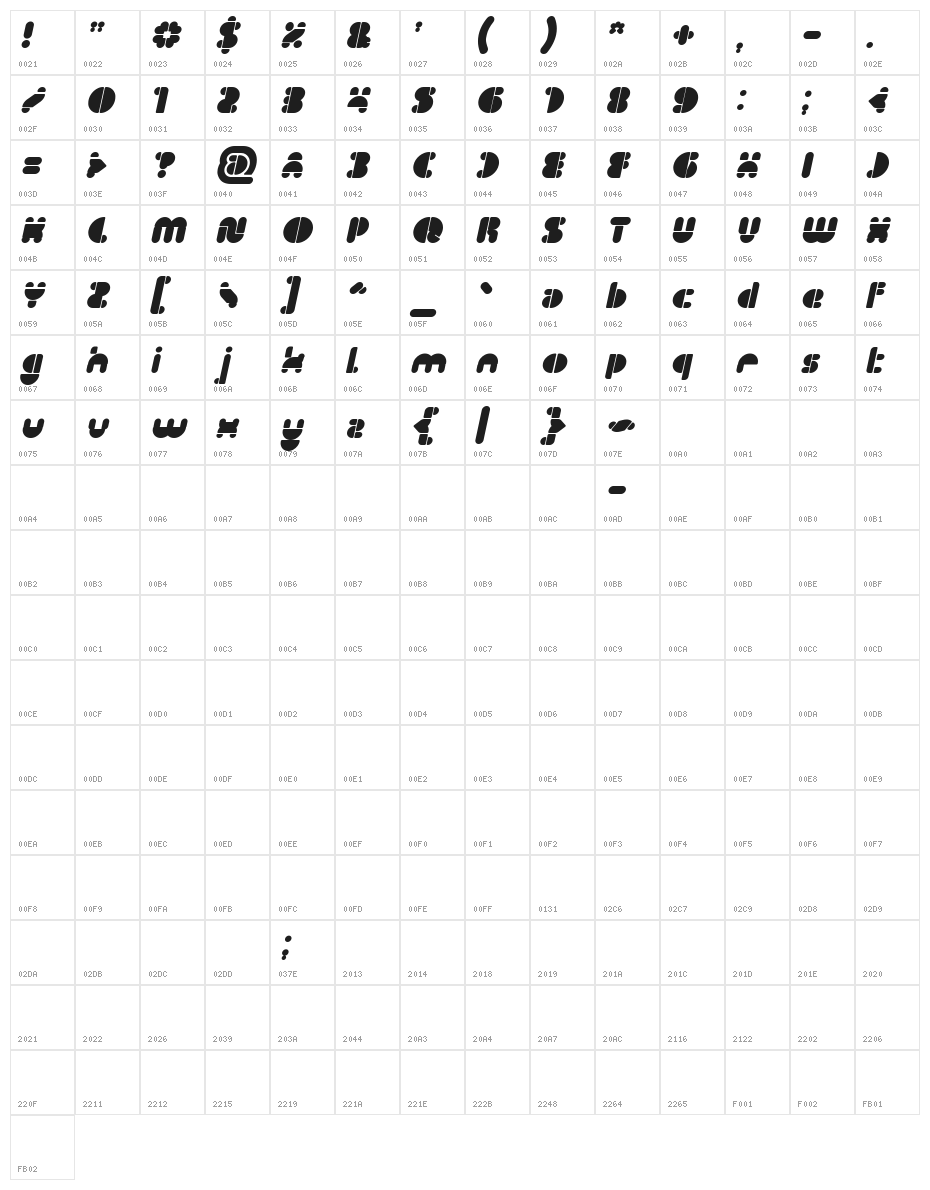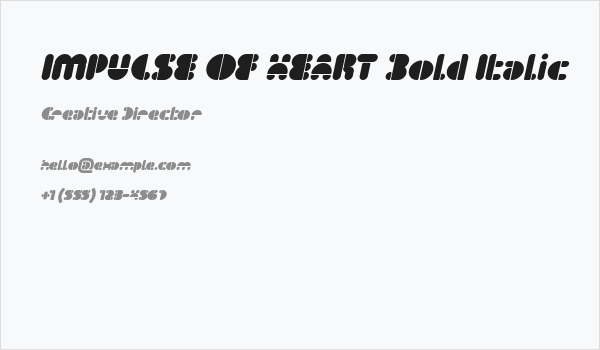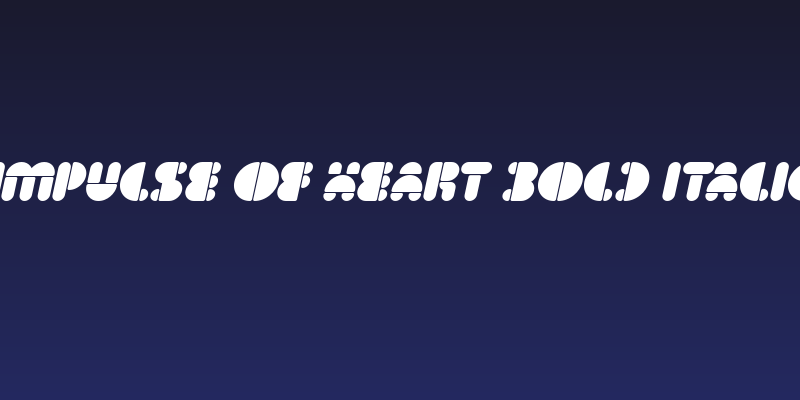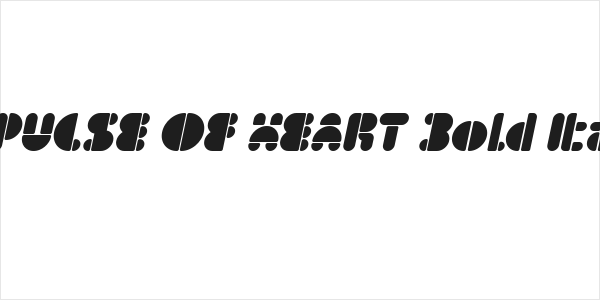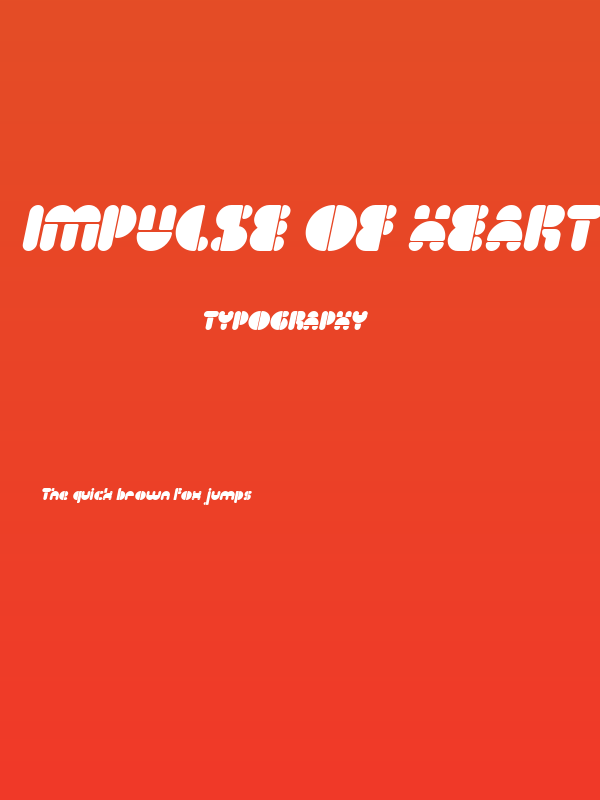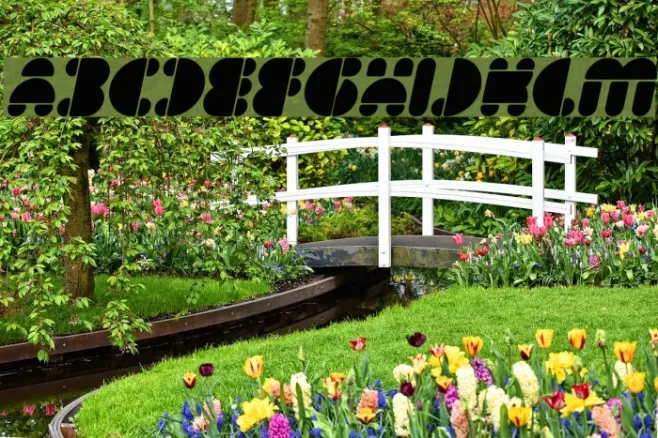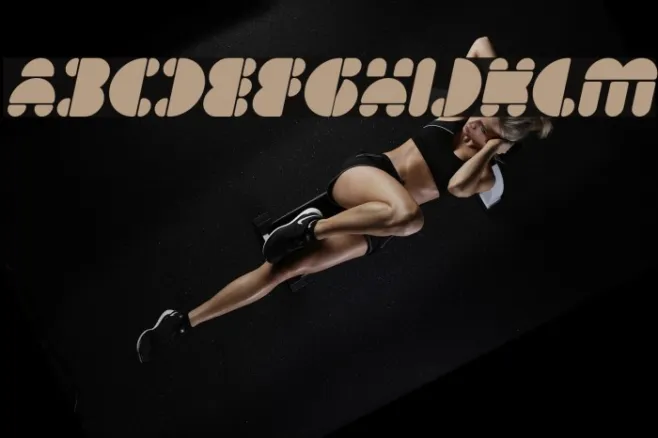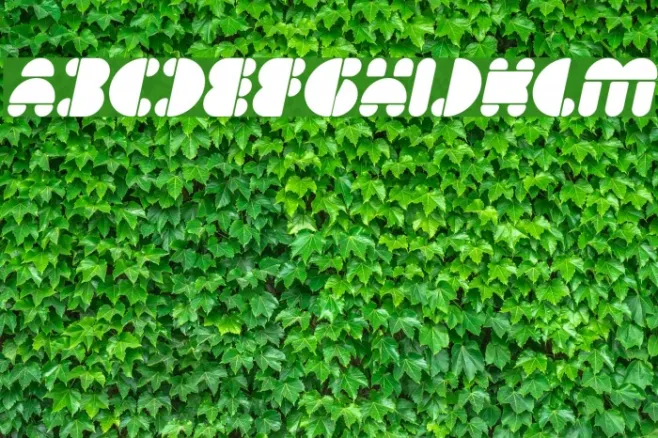
IMPULSE OF HEART Bold Italic Font
IMPULSE OF HEART Bold Italic Description
This font features a bold and italicized style with a unique, modern design. Each character is composed of solid, rounded shapes that create a sense of movement and fluidity. The letters are formed by combining circular and semi-circular elements, giving them a futuristic and artistic appearance. The font maintains a consistent weight throughout, emphasizing its boldness. The italic slant adds a dynamic touch, enhancing the overall visual impact. This font is highly decorative and stands out due to its unconventional structure and high contrast between the thick strokes and the negative space within each character.